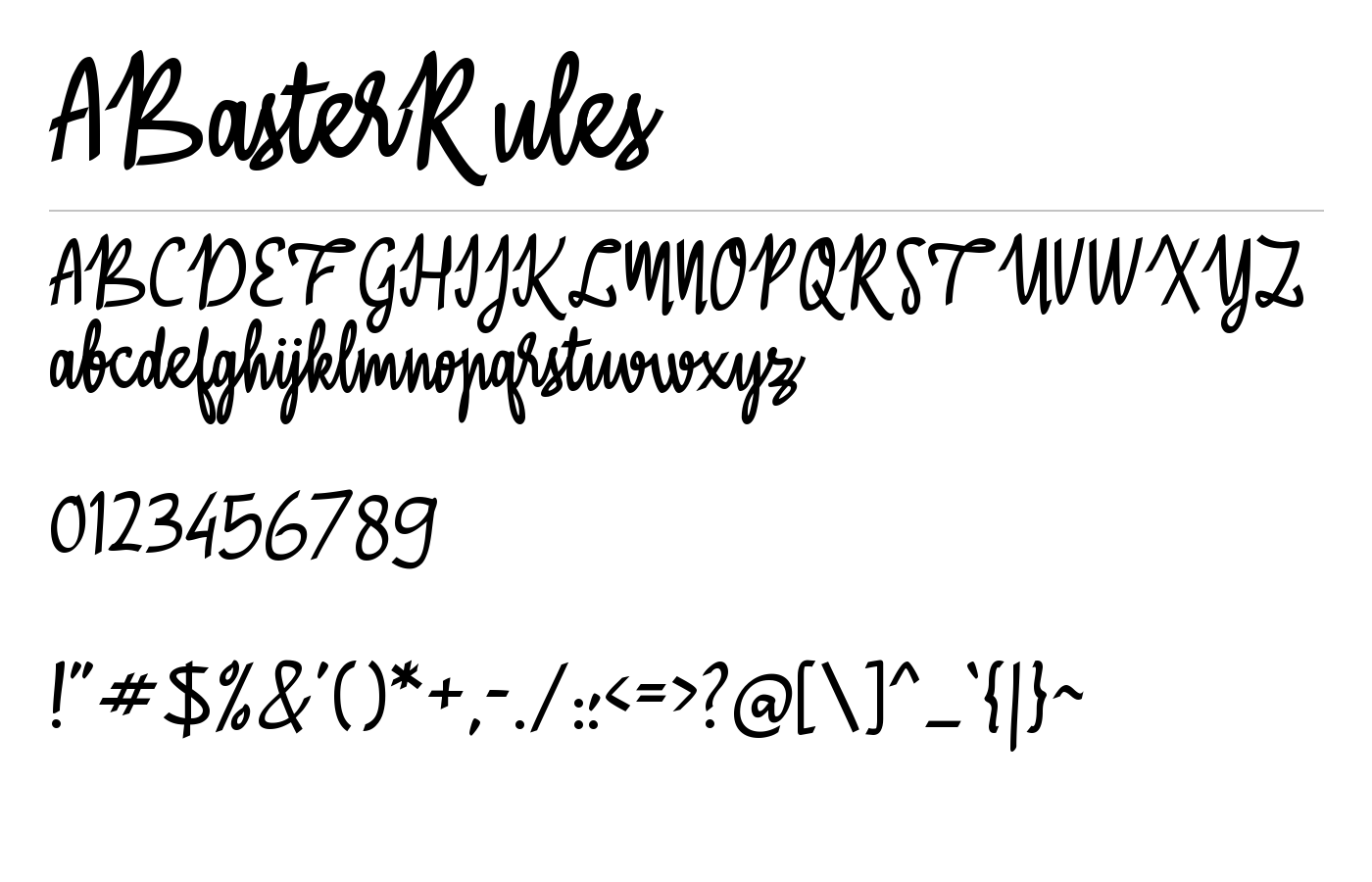
ABasterRules is a lively and expressive script font featuring a casual handwritten style with a strong personality. Its slightly condensed letterforms and varying stroke widths give it an energetic and approachable feel, making it perfect for creative projects, informal branding, and eye-catching headlines where a friendly, dynamic touch is desired. This font works well in settings that benefit from a personal, handcrafted vibe without sacrificing legibility.
ABasterRules Font